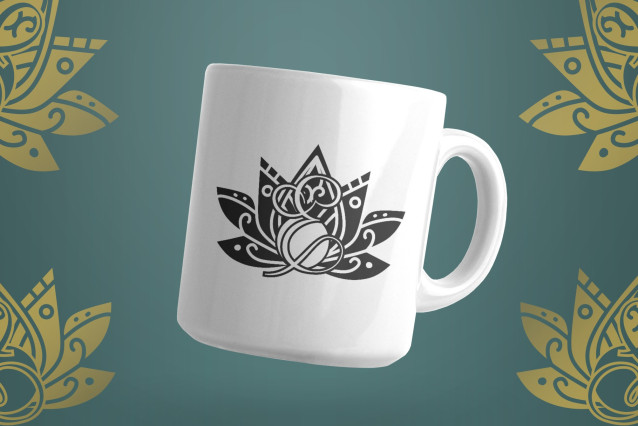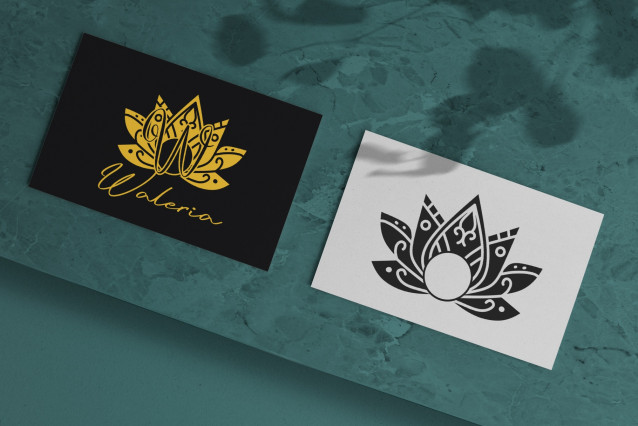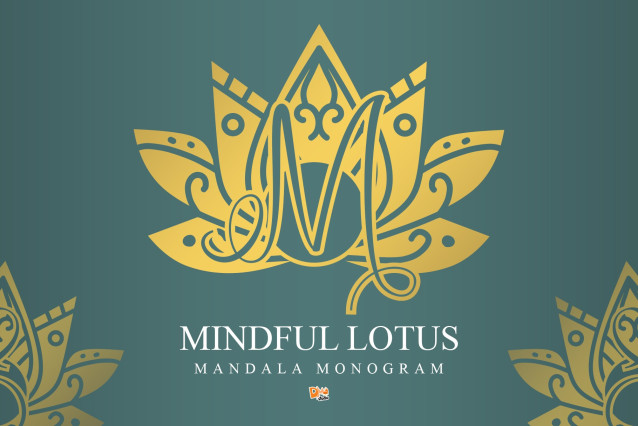
Mindful Lotus Mandala Monogram Font
Mindful Lotus Mandala Monogram is a delicately crafted font inspired by the symbolism of mindfulness and the intricate beauty of lotus mandalas. This ornamental monogram typeface is ideal for spiritual branding, wellness-themed designs, elegant stationery, and bohemian wedding materials. Its calming aesthetic and graceful floral patterns make it a perfect choice for meaningful and intentional creations.